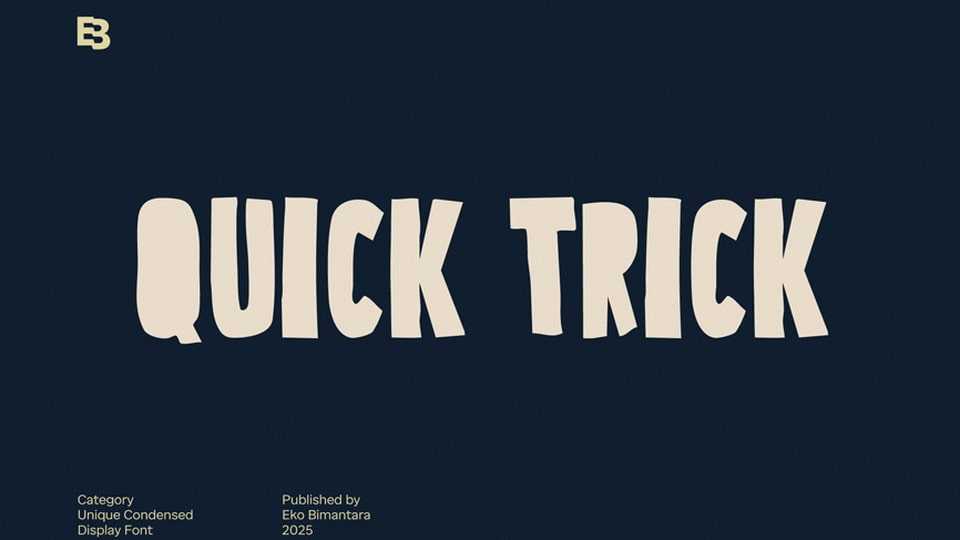
Download Quick Trick font, a unique condensed display typeface that blends modernity with a touch of playful imperfection with its bold, geometric letterforms and slightly uneven lines.